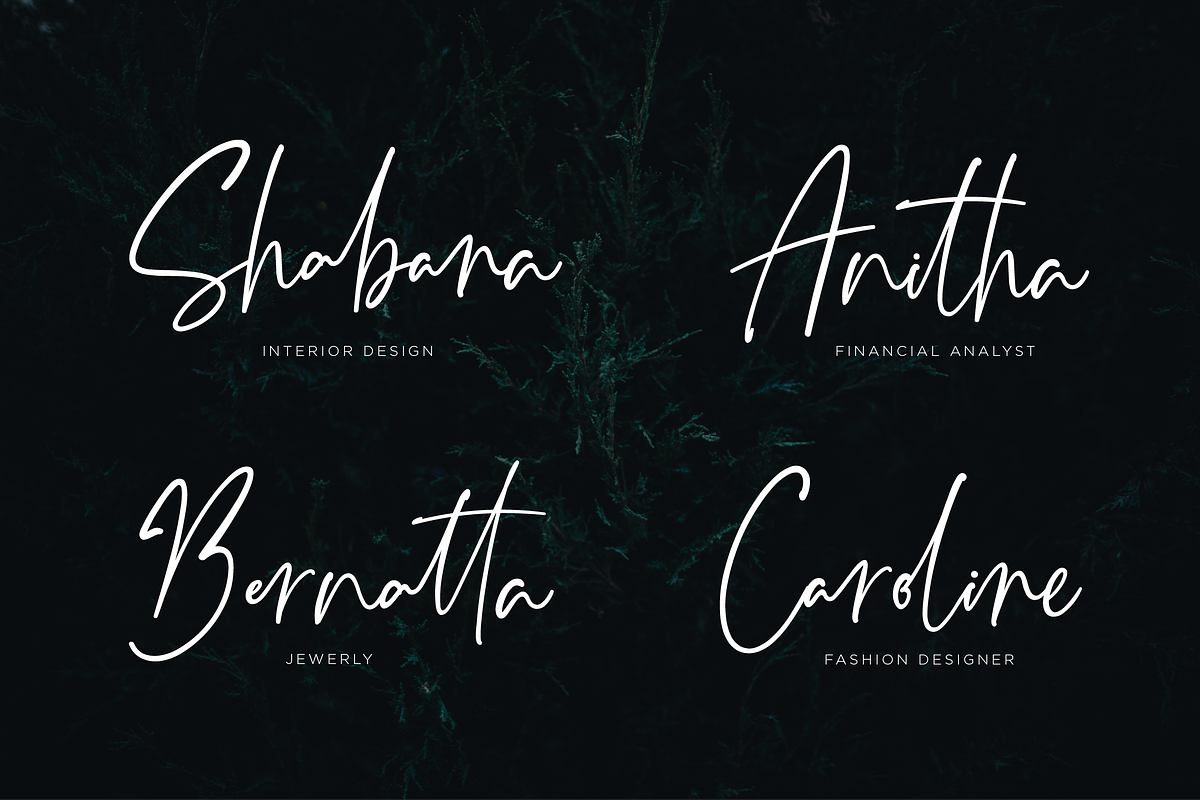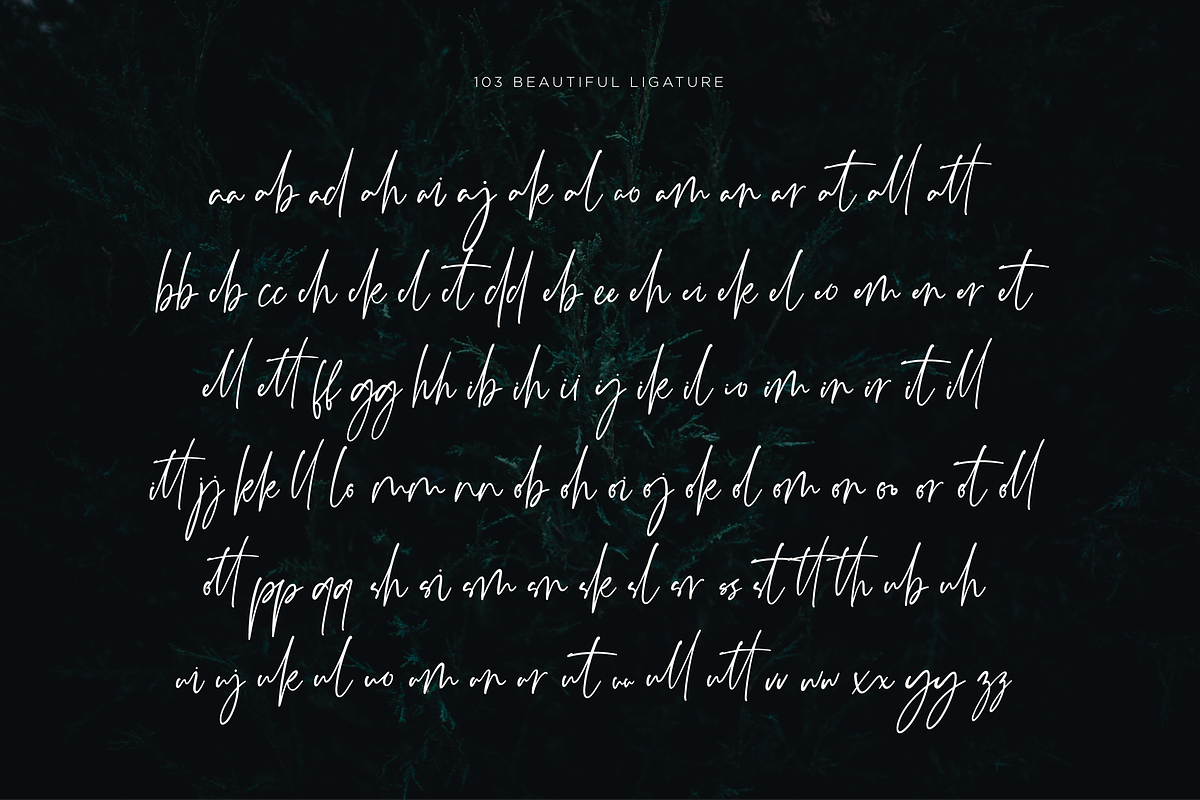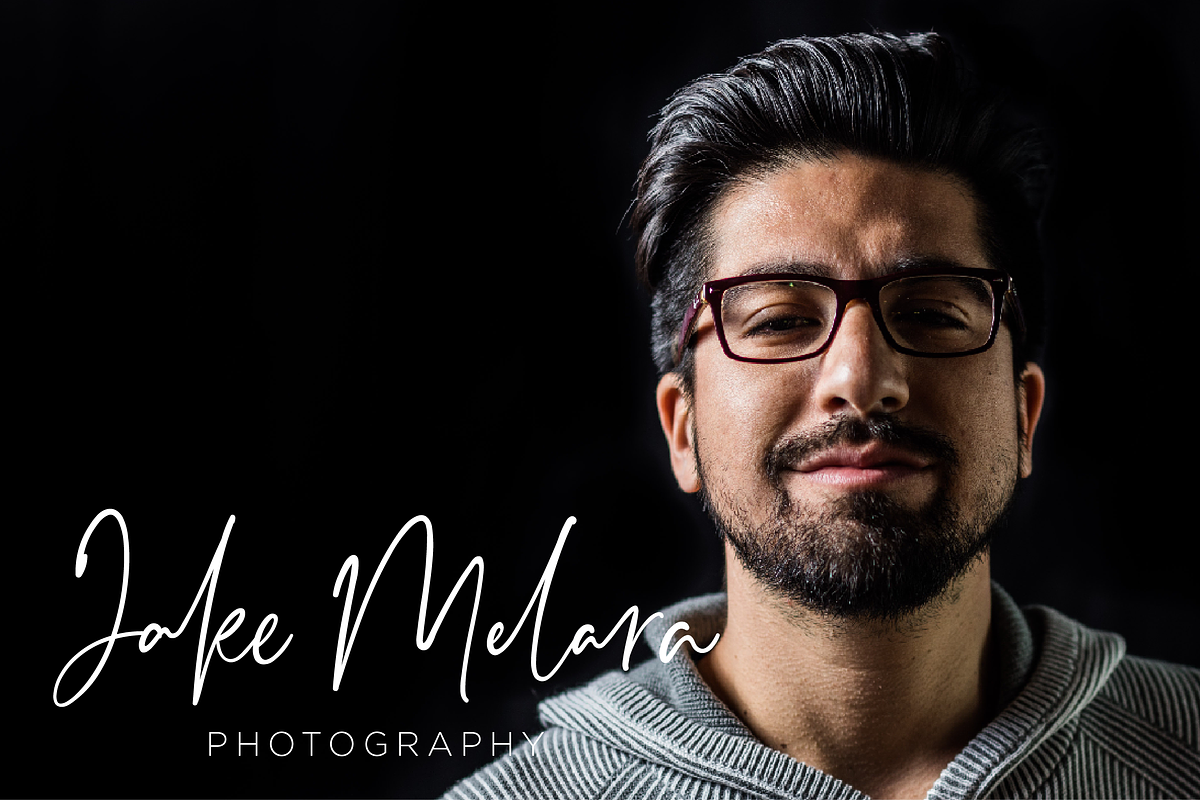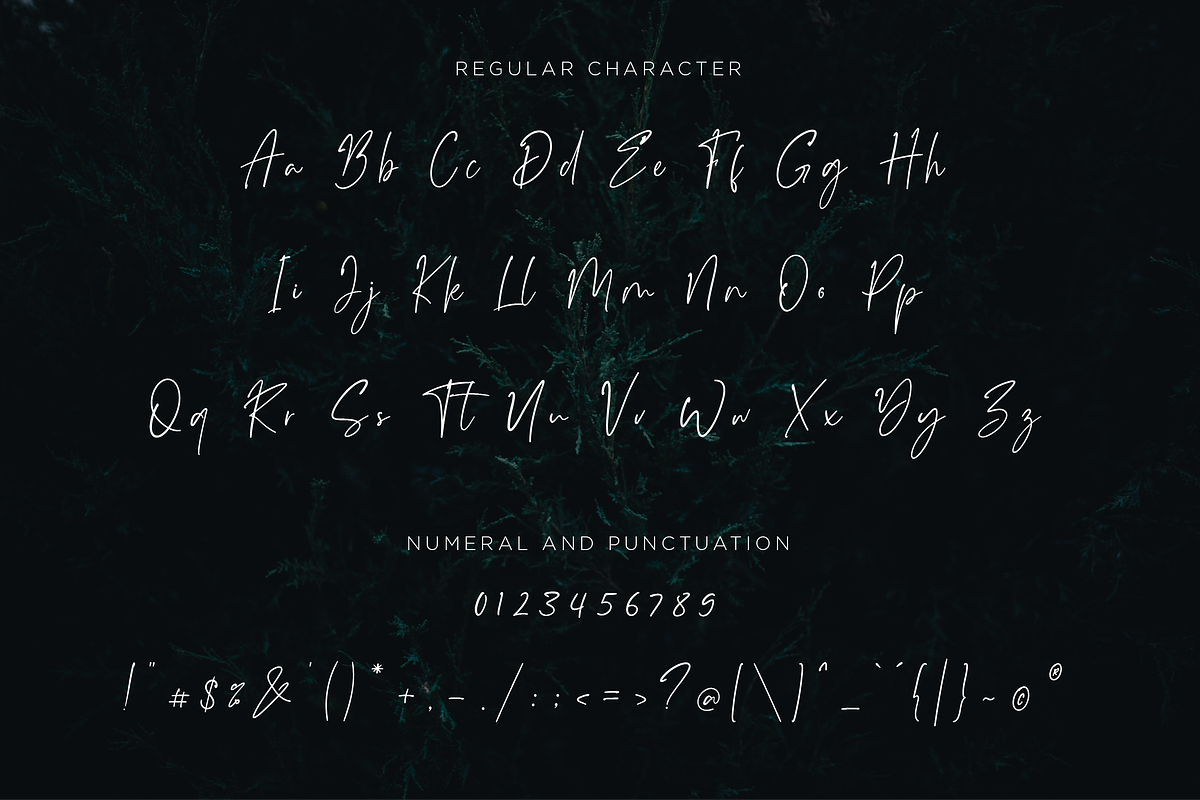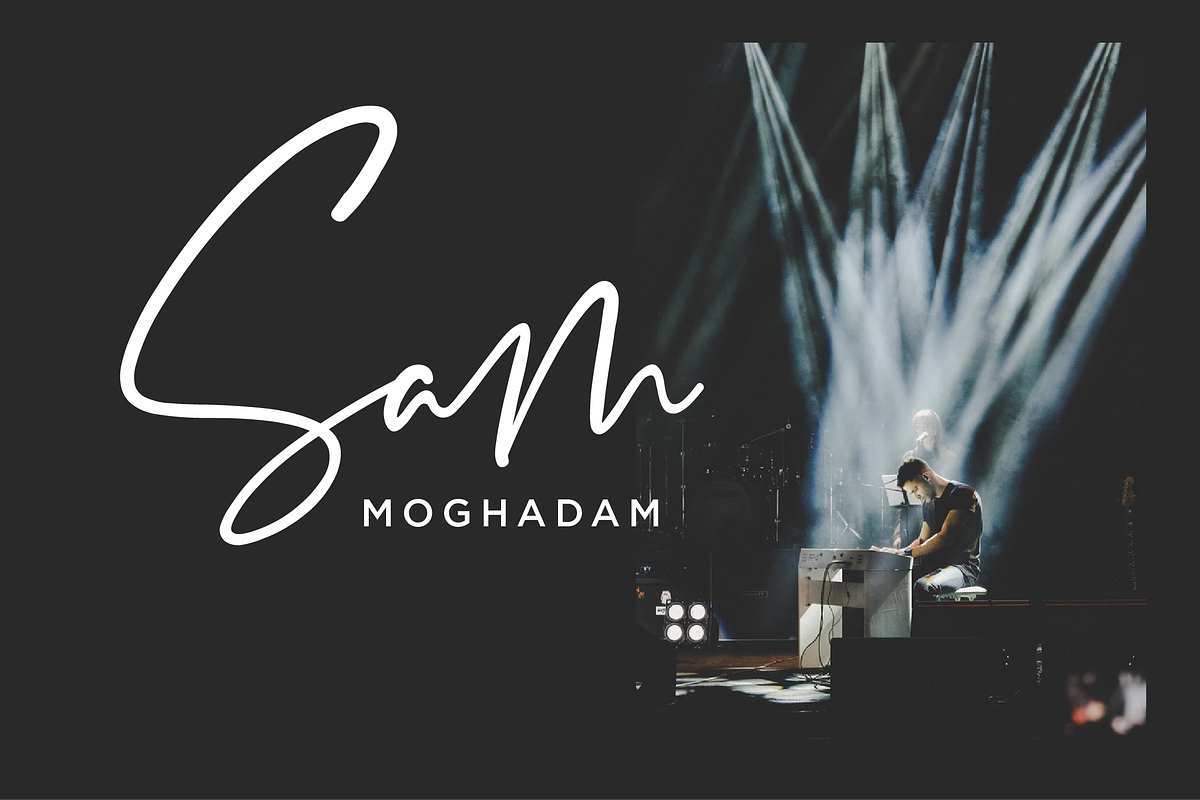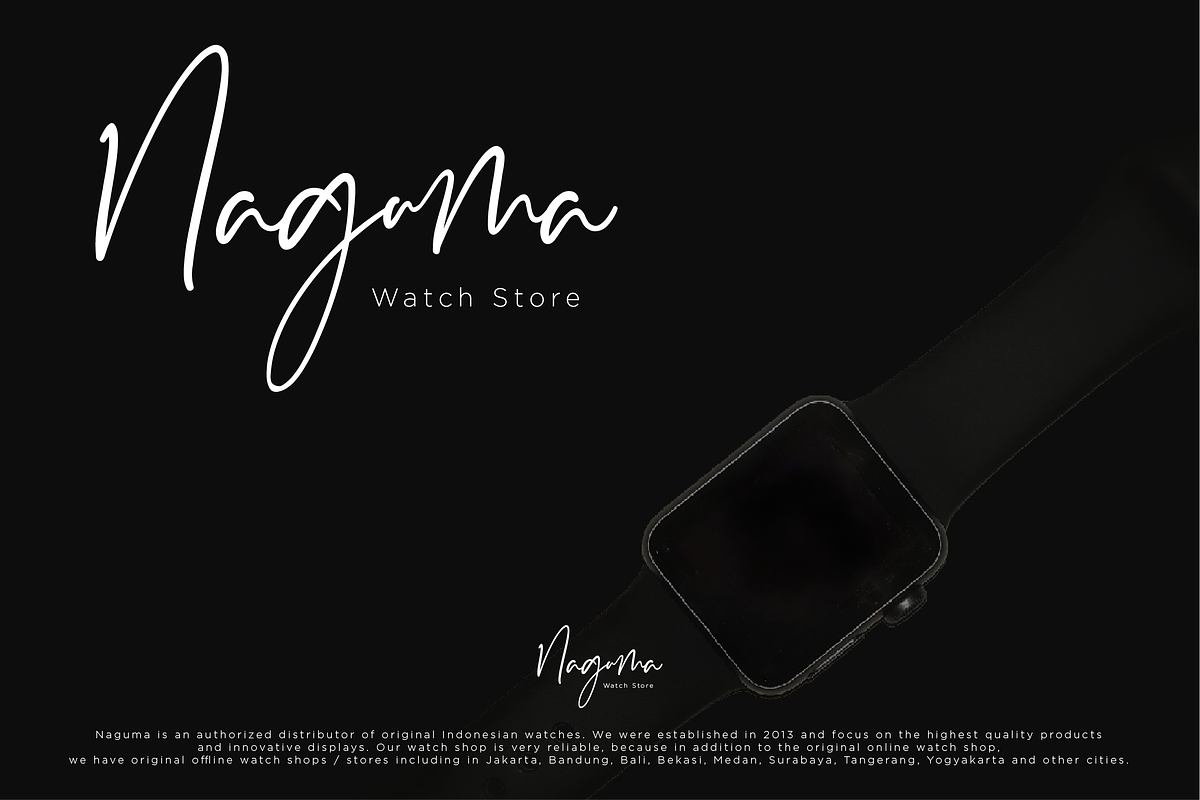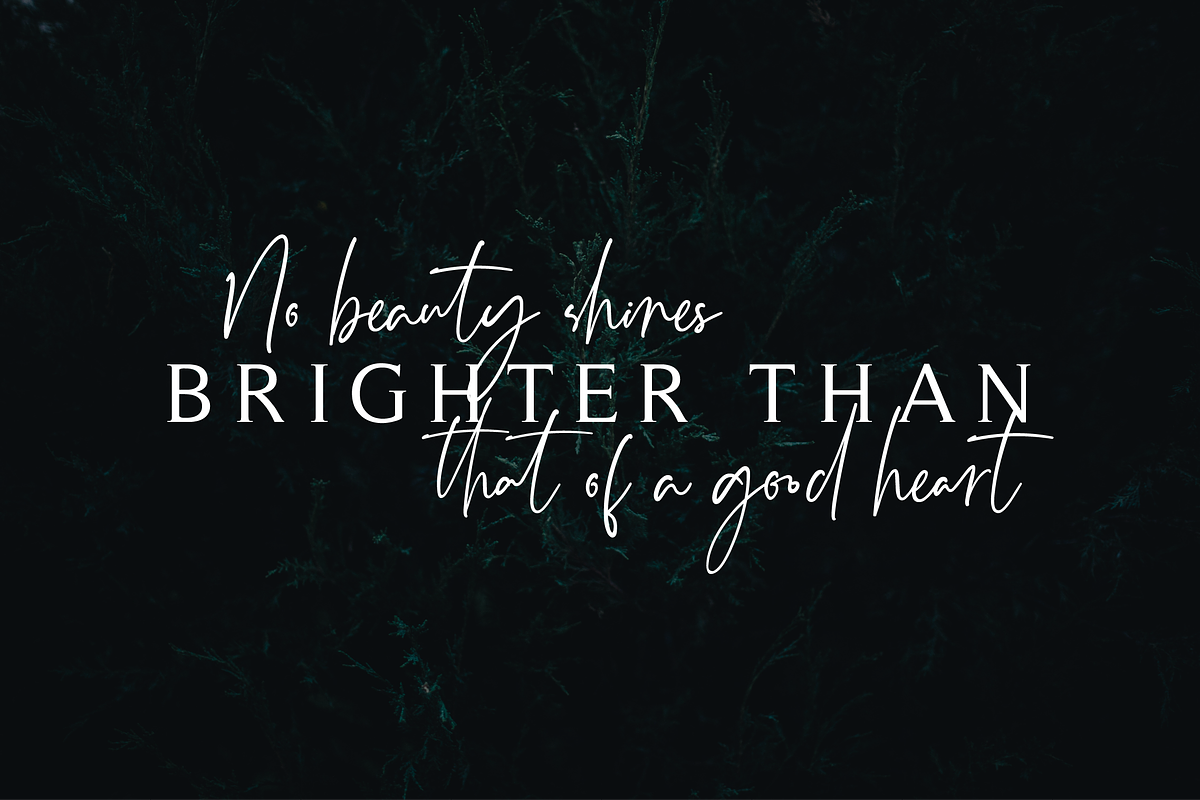
Monatta - Luxury Signature Font
Monatta is a luxury signature font. Created carefully with specific OpenType features include all caps, multilingual support (including currency symbols), 94 ligatures, standard numbers, and many others. this font perfect for any purpose, and very easy to use.
Uppercase and Lowercase Letter
Number and Punctuation
Multilingual Accent : ÀÁÂÃÄÅÆÇÈÉÊËÌÍÎÏÐÑÒÓÔÕÖØÙÚÛÜÝßàáâãäåæçèéêëìíîïðñòóôõöøùúûüýÿ